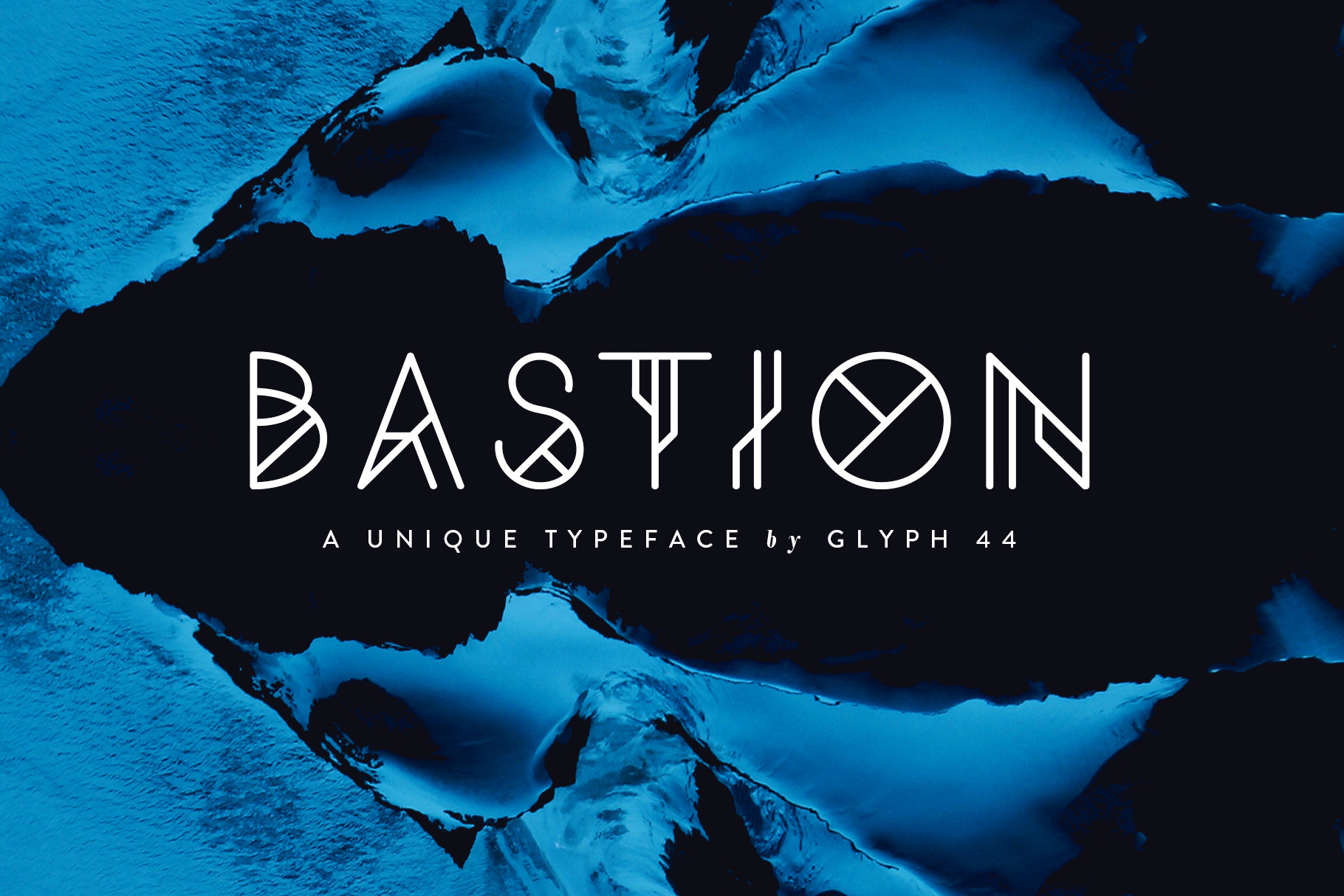
Bastion | Display Font
Bastion - A Geometric Display Font
Bastion is a contemporary sans-serif typeface stimulated with the geometric shapes and fluidity of modern typefaces. The aesthetics have proven to work well in most layouts, contexts and is accompanied with uppercase and lowercase alternates.